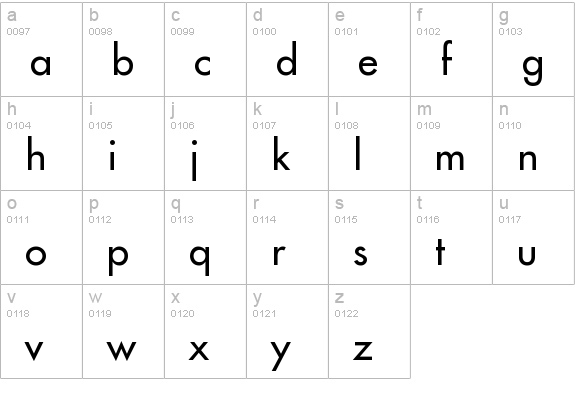
Fujiyama2 Font Details
Fujiyama2 font is a beautifully crafted typeface that exudes elegance and sophistication. Its sleek lines and modern aesthetic make it perfect for a wide range of design projects, from branding to editorial design. This versatile font is sure to elevate any project it is used in, adding a touch of class and style. The best part? Fujiyama2 font is completely free to download at FontsMarket.com. You can easily access this stunning typeface and enhance your designs with its unique charm and appeal. Whether you're working on a website, poster, or logo, Fujiyama2 font will make a statement and leave a lasting impression. Don't miss out on this opportunity to elevate your designs with this exceptional font that is just a click away.